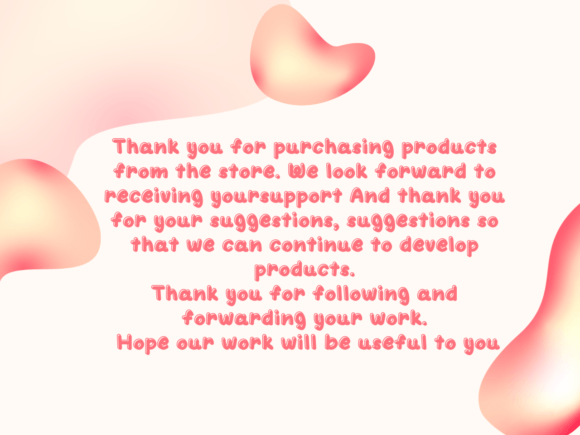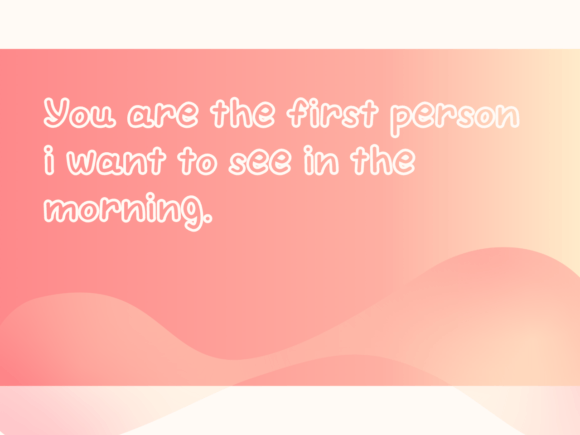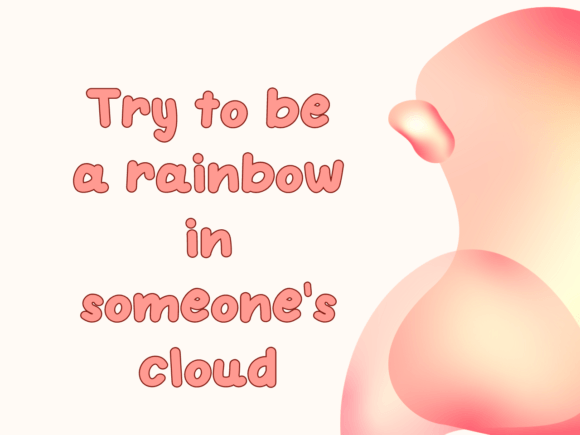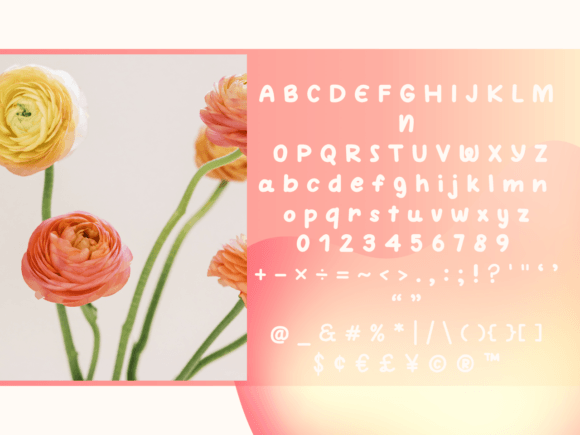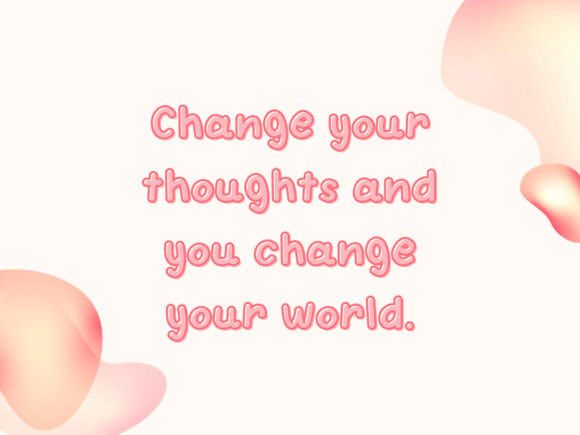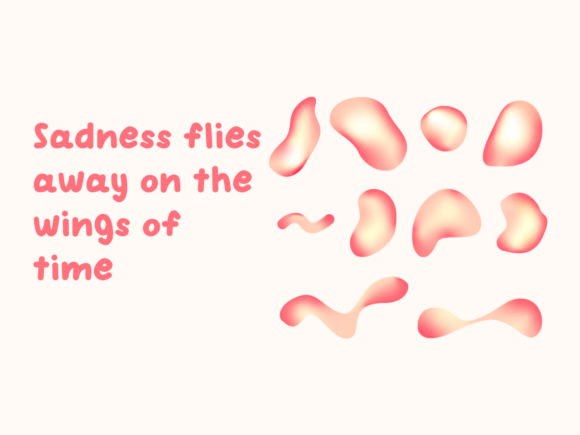
The Bowie Font: A Quirky Handwritten Delight for Your Creative Projects
I’ll never forget the time I was working on a handmade card for a friend’s birthday. I had the perfect design in mind, but something was missing – the right font. I scoured the internet, tried out countless options, but nothing seemed quite right. That was until I stumbled upon the Bowie font. ✨ It was love at first sight! The quirky, handwritten style added a touch of personality to my design that I just couldn’t get enough of. In this article, I’ll share my experience with the Bowie font, its features, and how to make the most of it in your creative projects.
An Honest Review of the Bowie Font
- ✨ Unique and quirky handwritten style that’s perfect for adding personality to your designs
- ✅ Highly versatile and can be used for a wide range of projects, from cards and invitations to media designs and more
- ✅ Easy to read and understand, even in smaller sizes
While the Bowie font is an excellent choice for many projects, there are a few things to keep in mind: 🤔
- ⚠️ Some users may find the font a bit too playful or informal for certain projects
- ⚠️ Limited availability of certain OpenType features, such as ligatures or stylistic alternates
A Practical Guide to Using the Bowie Font
The Backstory of the Bowie Font
The Bowie font was designed by a team of creative typographers who wanted to create a unique and quirky handwritten font that would add personality to any design. Inspired by the works of famous designers and artists, the team poured their hearts and souls into creating a font that’s both fun and functional. The font was named after the legendary musician David Bowie, known for his bold and eclectic style.
Q: What is the Bowie font?
A: The Bowie font is a quirky handwritten font that’s perfect for adding personality to your designs.
Q: What can I use the Bowie font for?
A: You can use the Bowie font for a wide range of projects, from cards and invitations to media designs and more.
Q: Is the Bowie font easy to read?
A: Yes, the Bowie font is highly legible, even in smaller sizes.